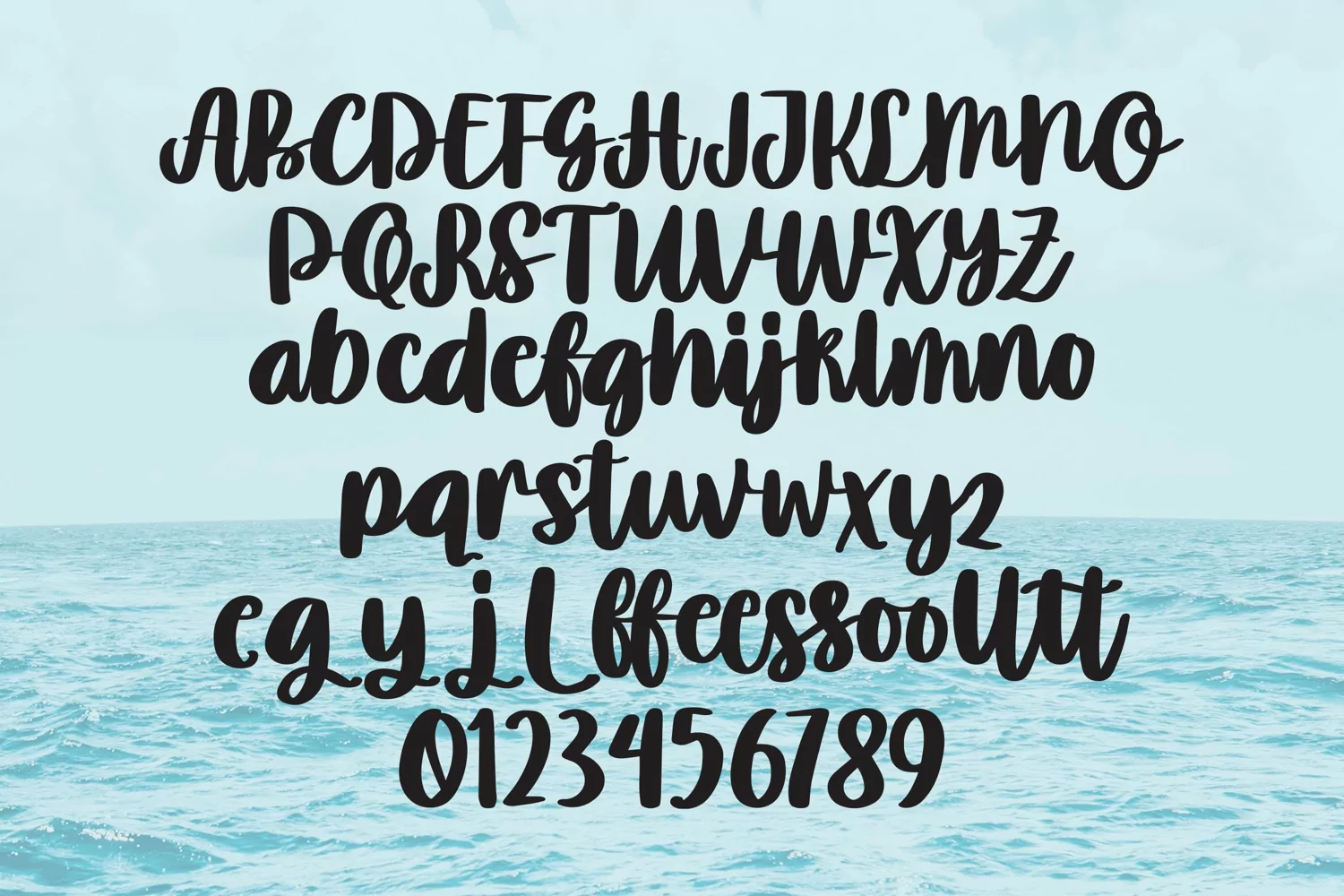
Lovely Blue - Script Handrawn Font that contain lowercase, uppercase, symbol, and also support multi language. There’s a lot ligatures in this font. This Font also comes with ligatures, alternates and many more. this font suitable for fashion, branding, catalog and other design what you want.
Lovely Blue